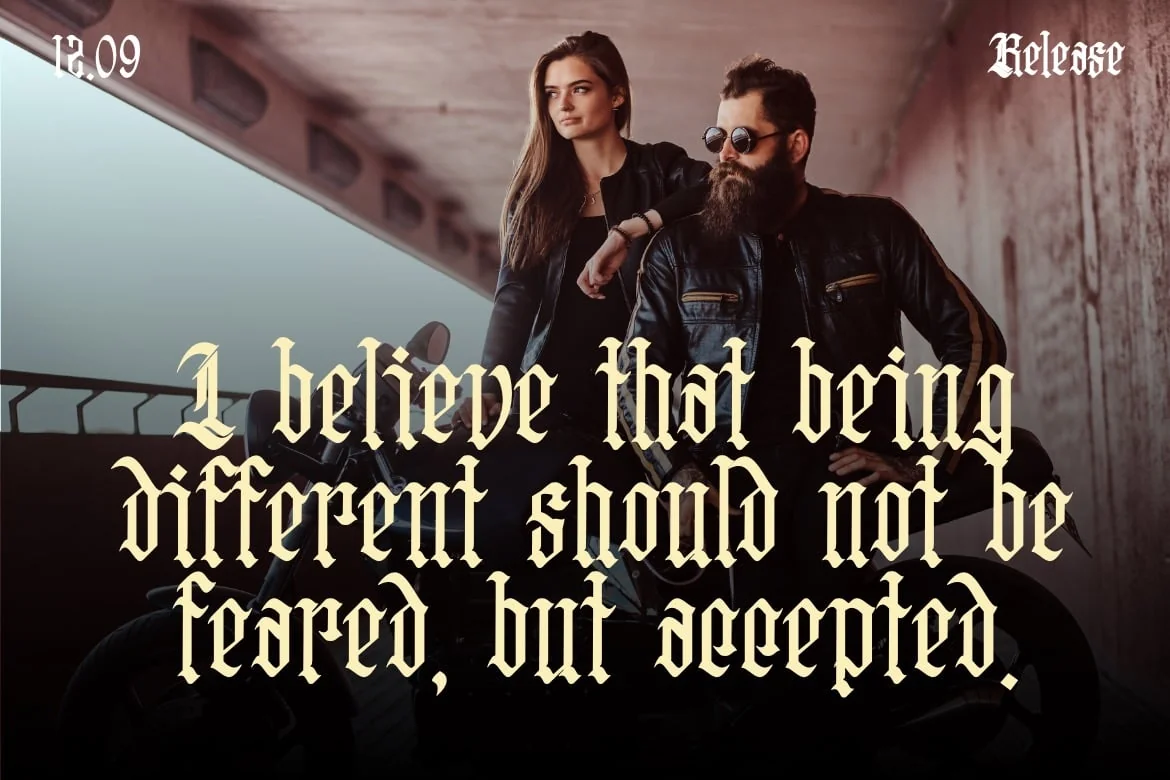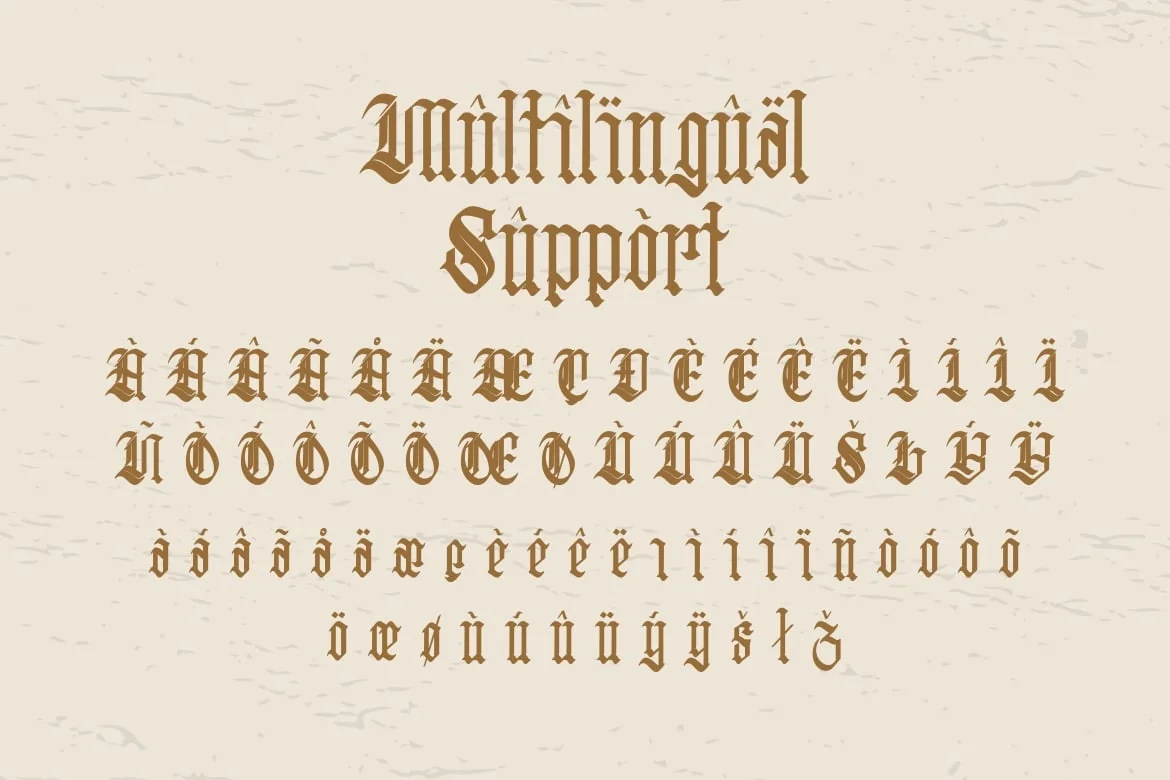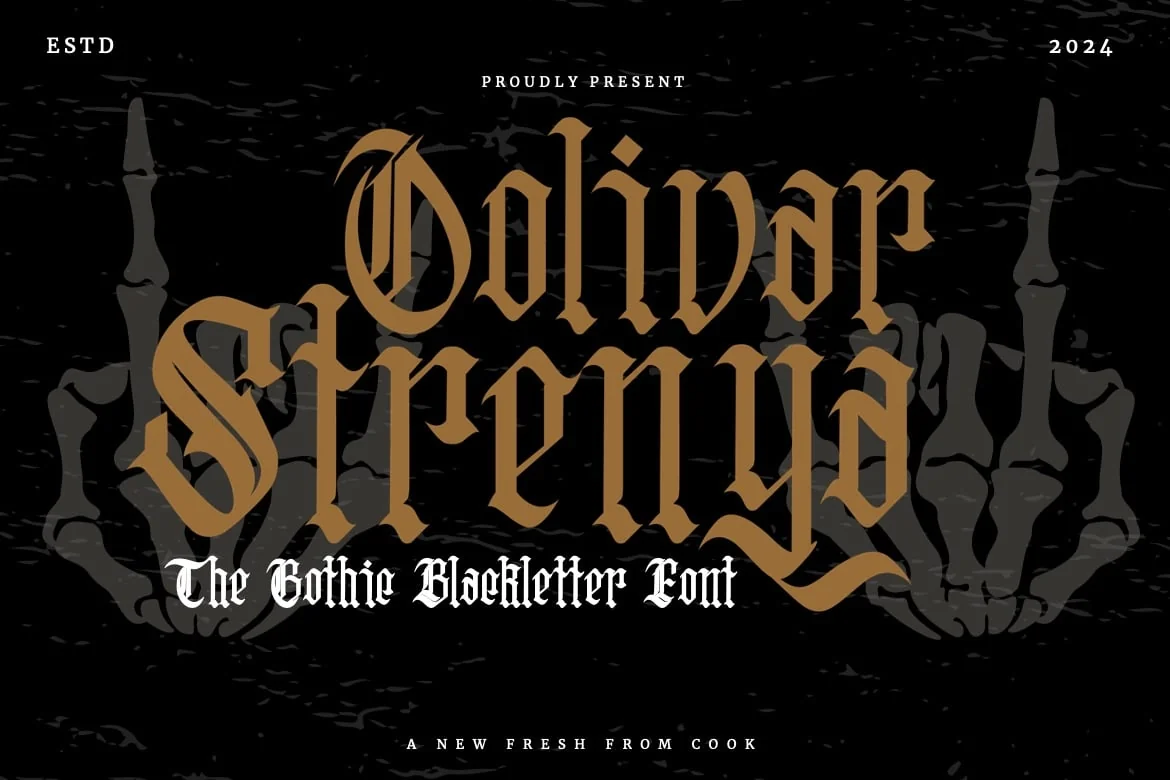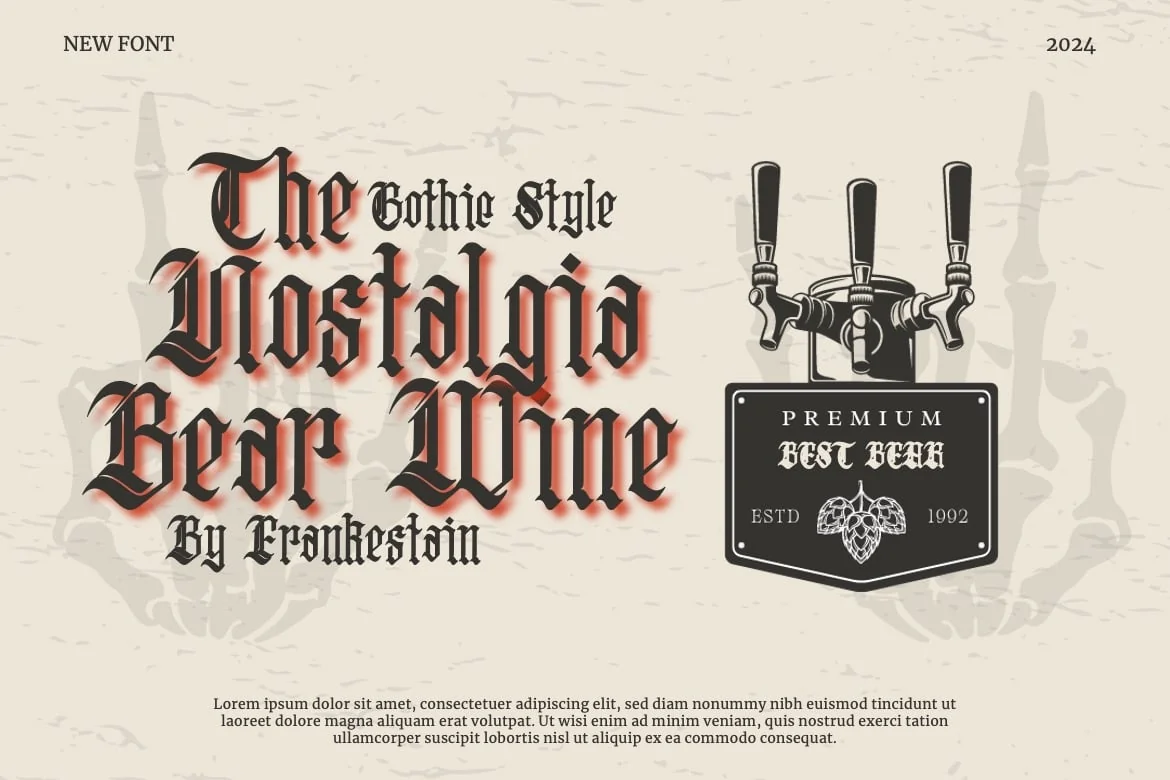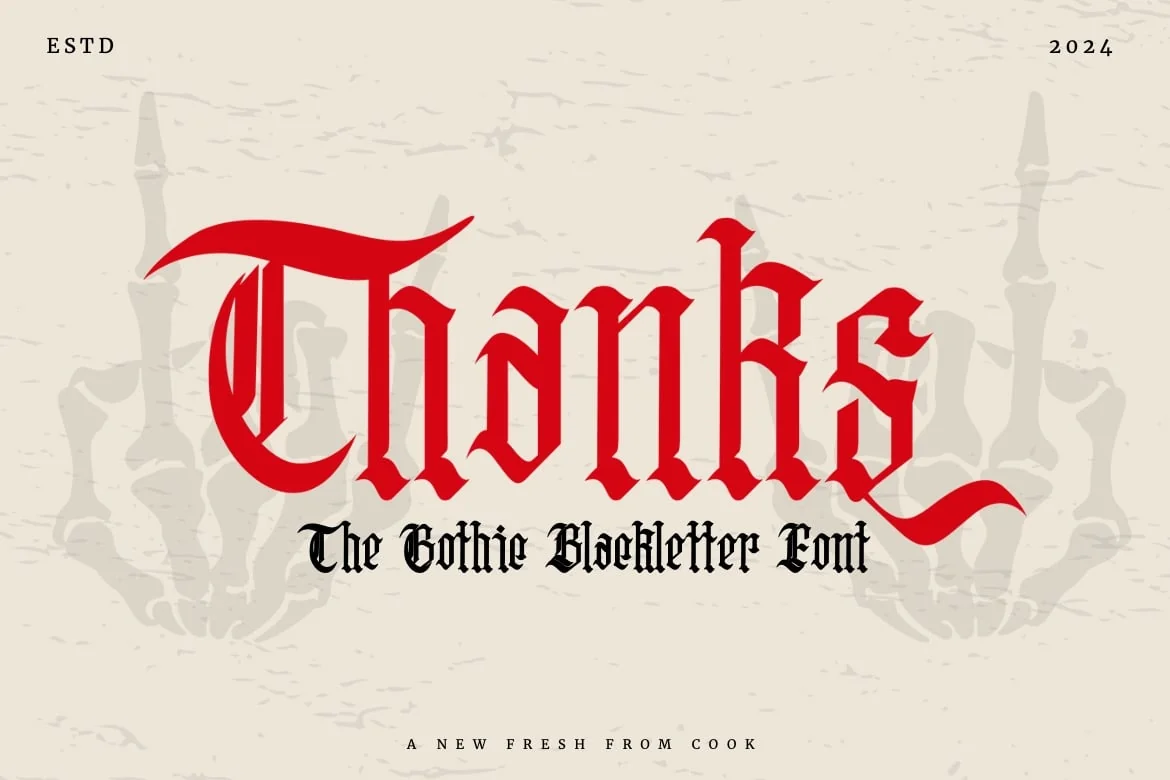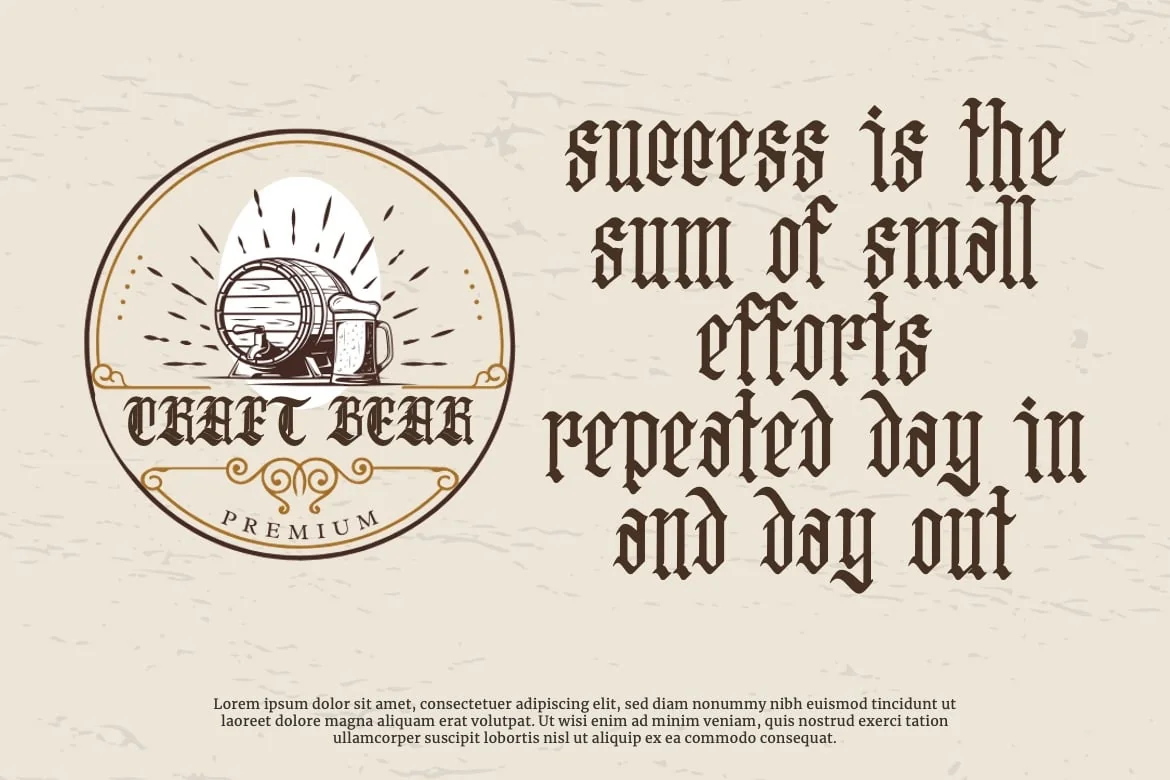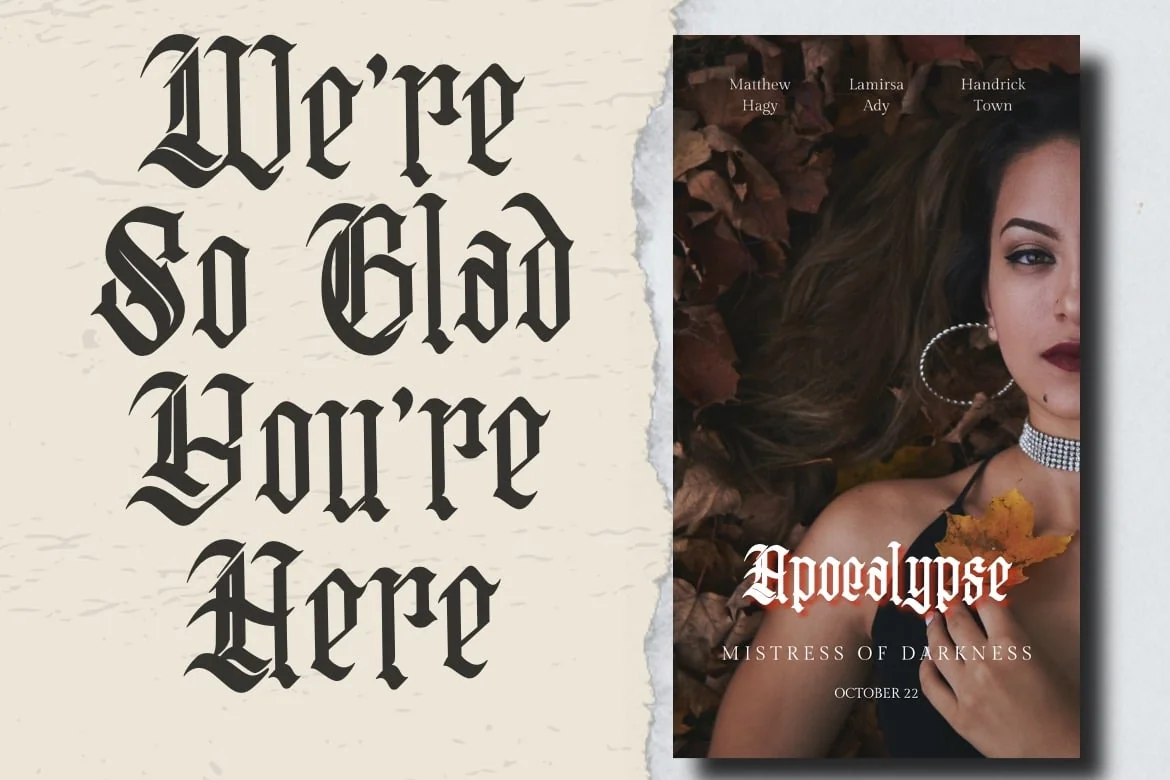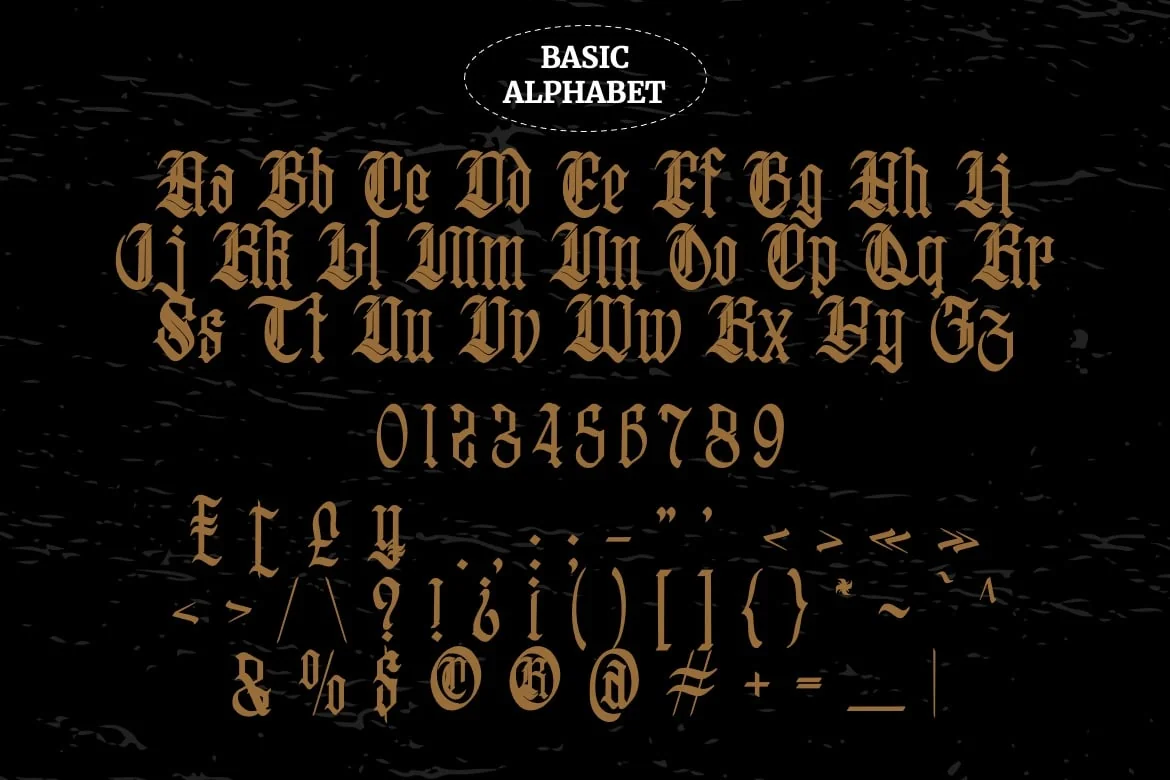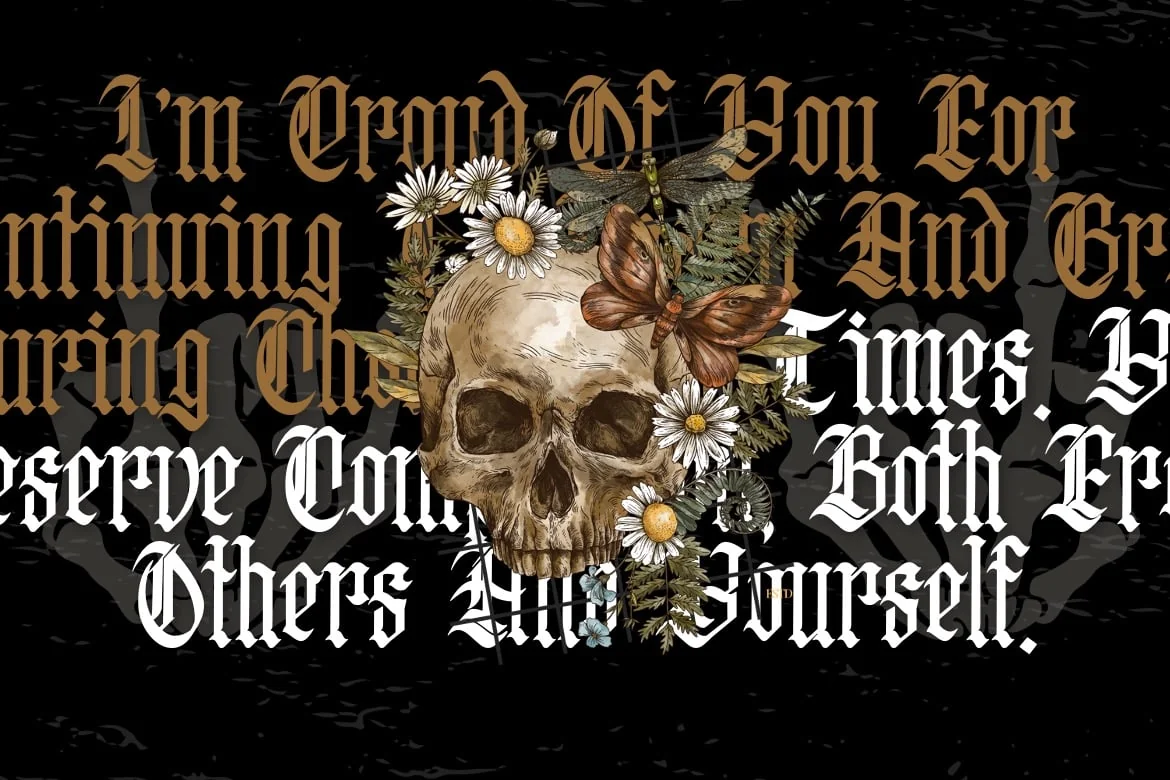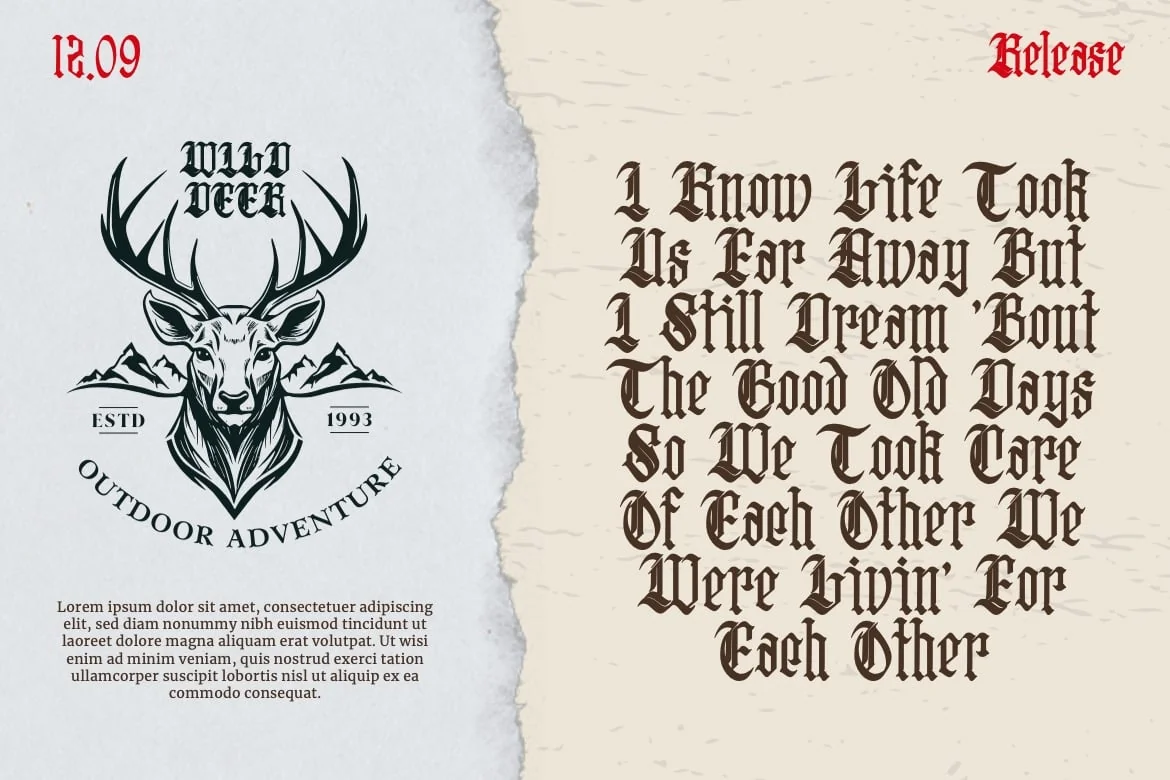
Oolivar Strenya – Gothic Blackletter Font
Introducing Oolivar Strenya – Gothic Blackletter Font
This Font is a delicate, elegant and flowing handwritten font. It has beautiful and well as a unique blend of ligatures a letter, so that the authors compose it with a and little swirly embedding, so that a modern font is formed and ready to make a statement by adding elegant and unique flair to your next design project. Add it to your most creative ideas and notice how it makes them come alive!
• Uppercase & Lowercase
• Alternate & Ligature
• Numbering & Punctuation
• Multilingual Supports